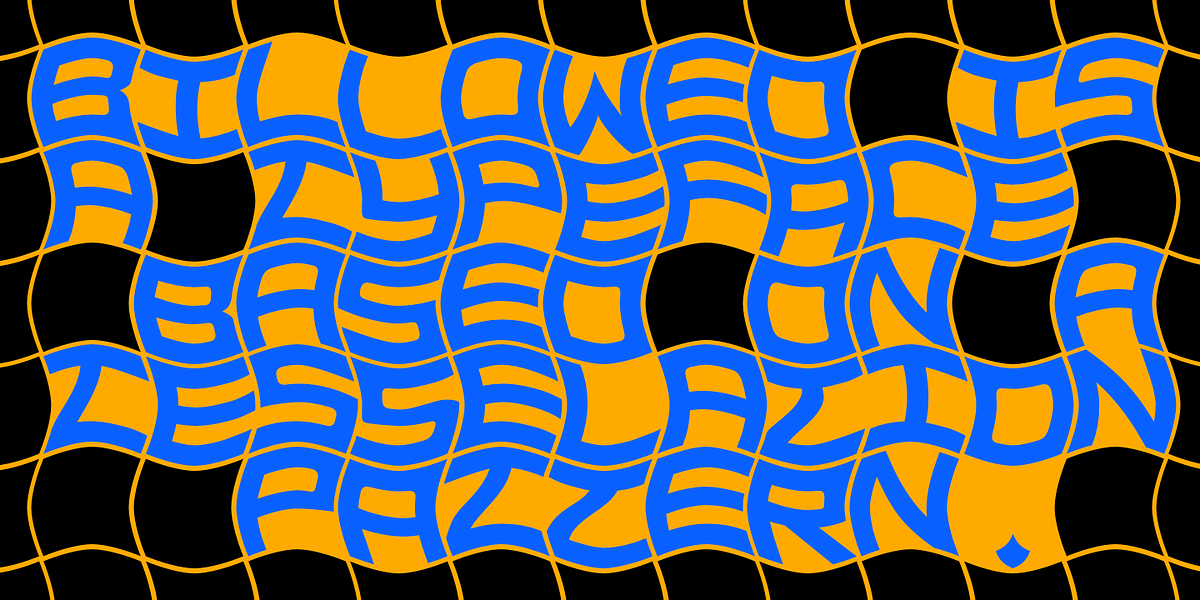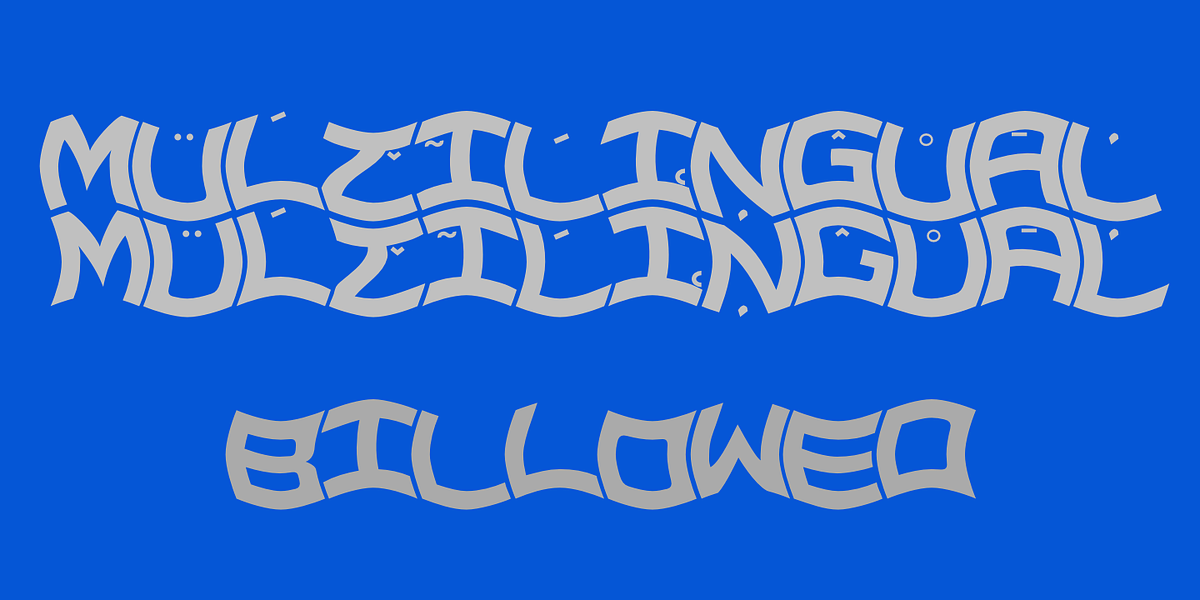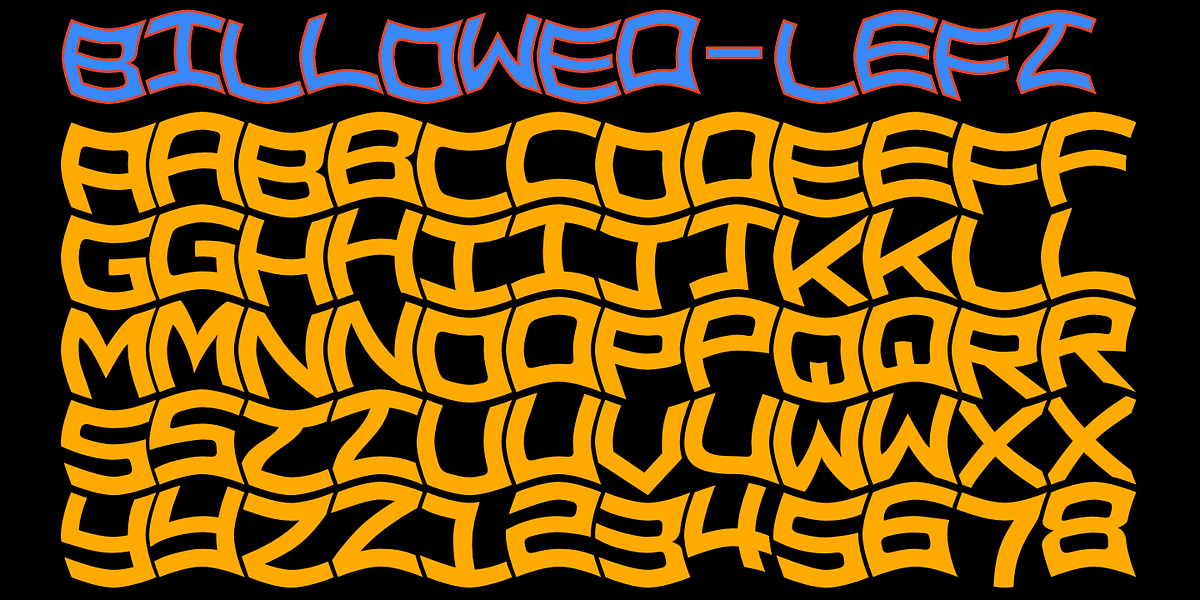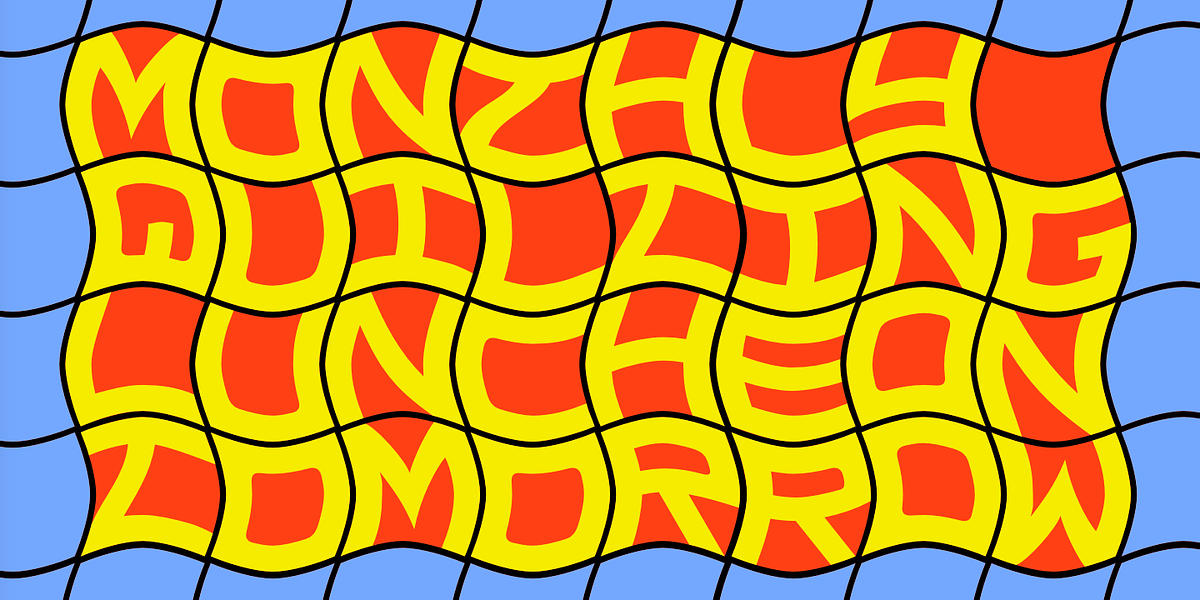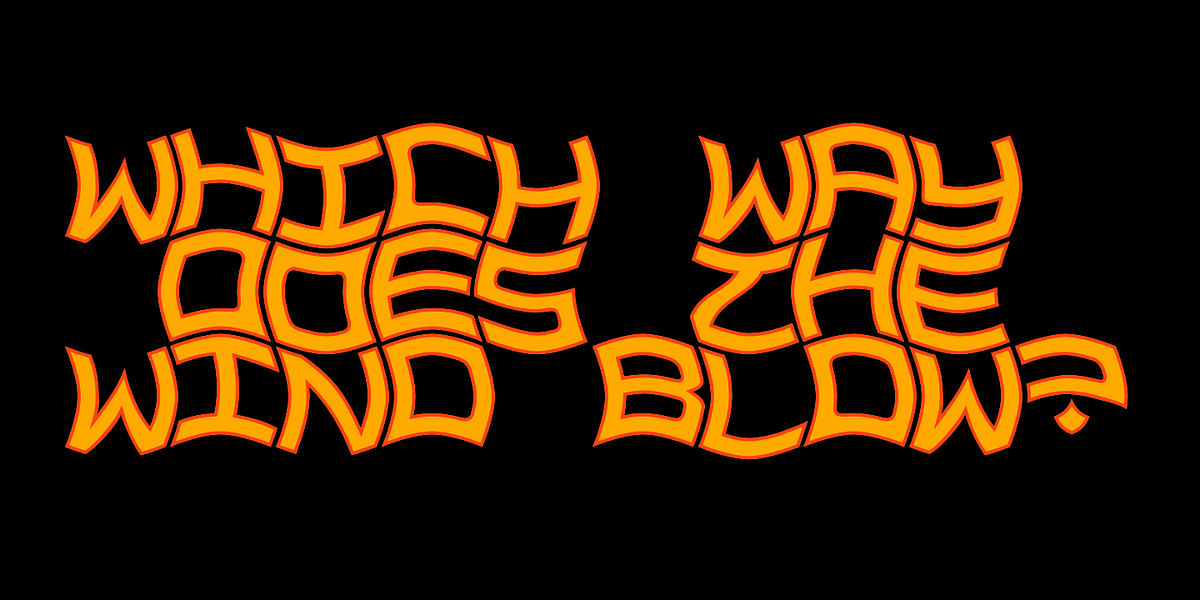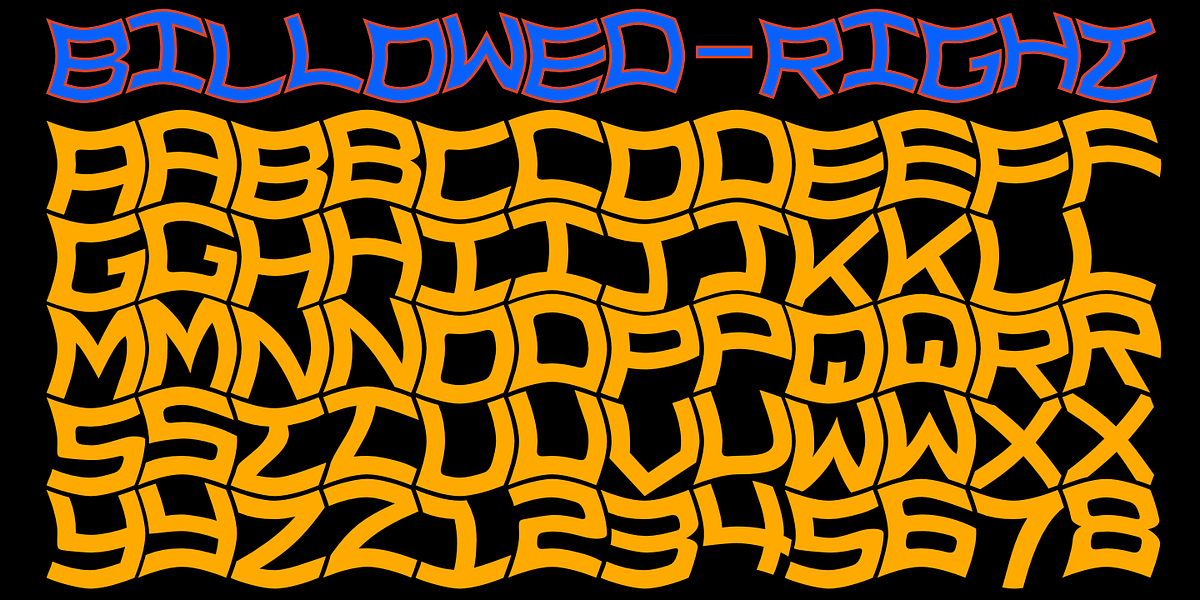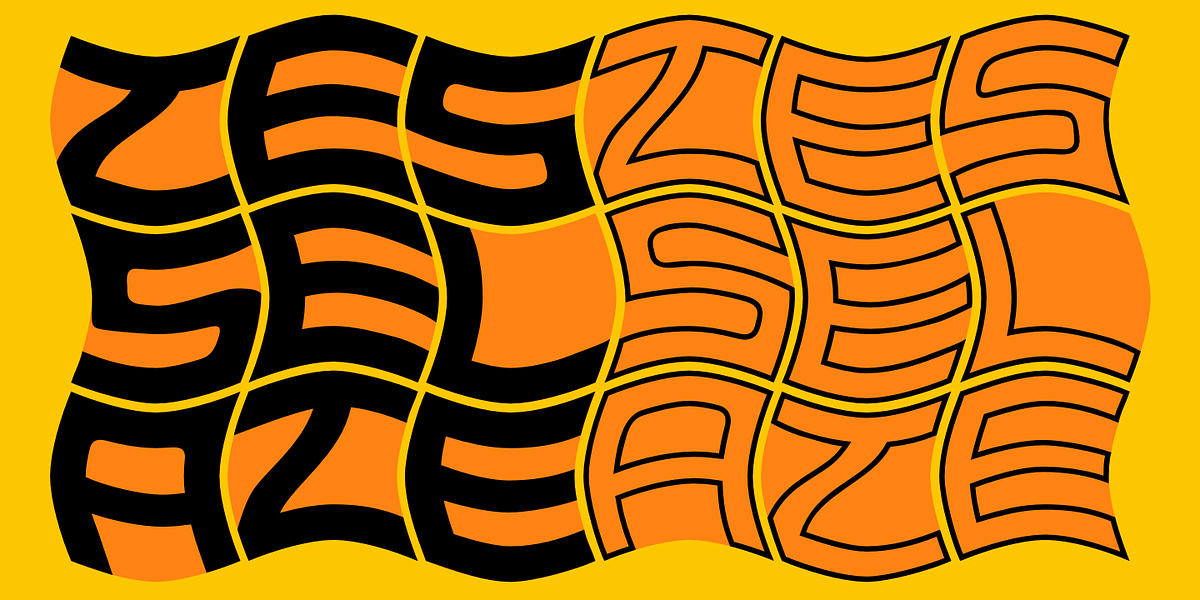
Billowed
Billowed is a geometric display typeface designed around a unique shape that tessellates in multiple orientations. This results in an interlocking pattern of letters with alternating forms. The font's monospaced design and tight letter spacing further accentuate the ripple effect. While not intended for specific use cases, Billowed's eye-catching nature makes it suitable for applications like advertising, signage, or anywhere attention-grabbing lettering is desired.